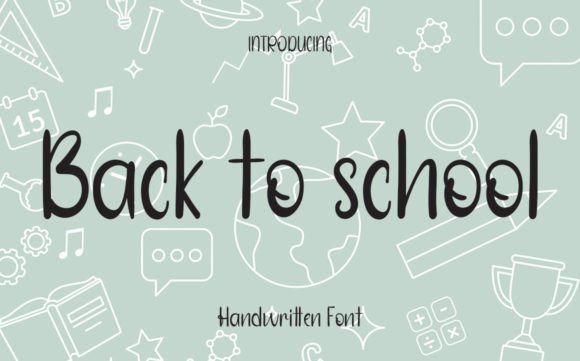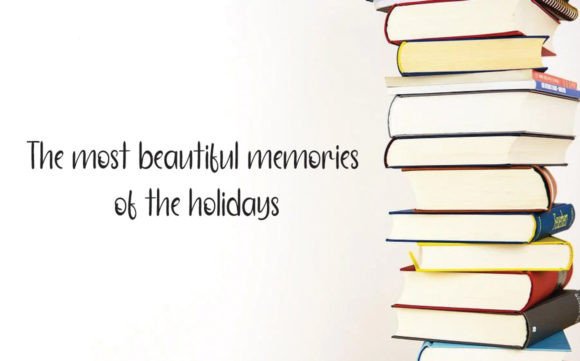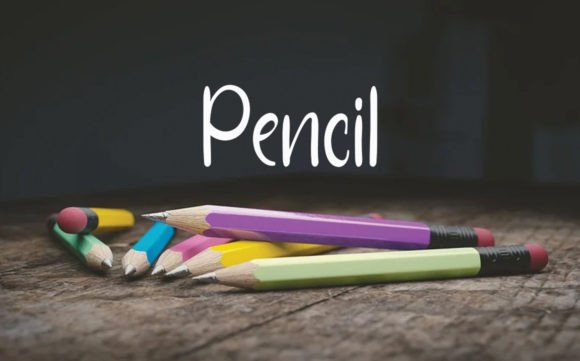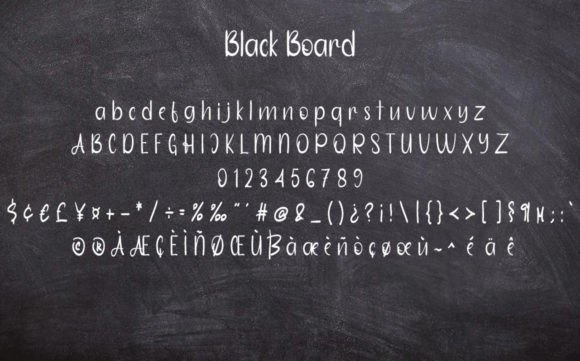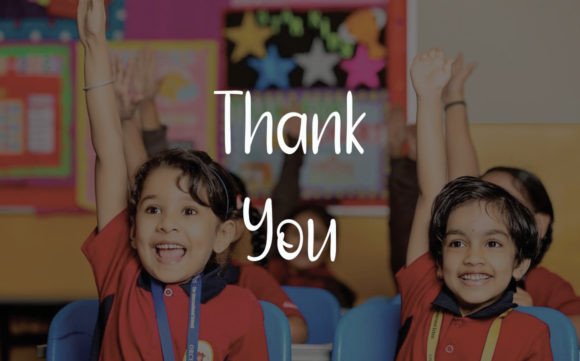
Introducing “Back to School” – Your Fun and Versatile Display Font!
“Back to School” is more than just a font; it’s a design tool that embodies the essence of cool, simplicity, and playfulness. With its remarkable versatility, this font has the power to take a wide range of creative projects to new heights, giving them a fresh and dynamic appearance. When you incorporate “Back to School” into your designs, you’ll immediately notice how it breathes life into your ideas, making them pop with vibrancy and energy!
This font isn’t just another typeface; it’s your secret weapon for enhancing the visual impact of your projects. Whether you’re working on posters, flyers, invitations, branding materials, or any design that requires a touch of charm and personality, “Back to School” is your go-to choice. Its unique style and friendly demeanor will effortlessly capture the attention of your audience and leave a lasting impression.
Imagine using “Back to School” to create eye-catching back-to-school promotions, playful children’s book covers, cheerful party invitations, or even a fun and engaging website design. The possibilities are endless, and this font’s adaptability knows no bounds.
Don’t let your creative ideas fall flat – bring them to life with the magic of “Back to School.” This font is designed to be your trusted companion, adding that extra spark and helping your projects stand out with style and flair.
So, why wait? Elevate your design game with “Back to School” and watch as your creations come to life in the most captivating and delightful way. Get ready to make a bold statement and leave a lasting impression with this incredible display font!